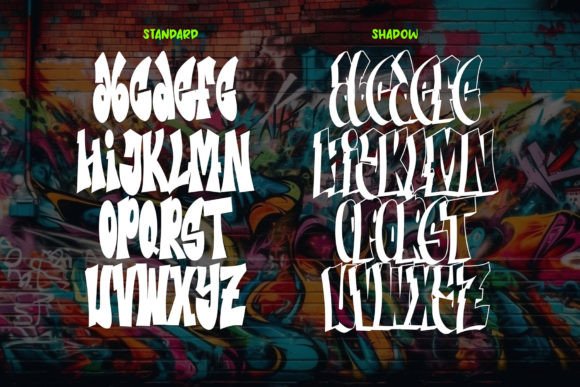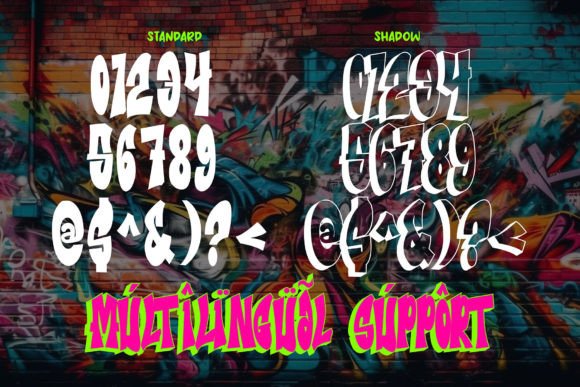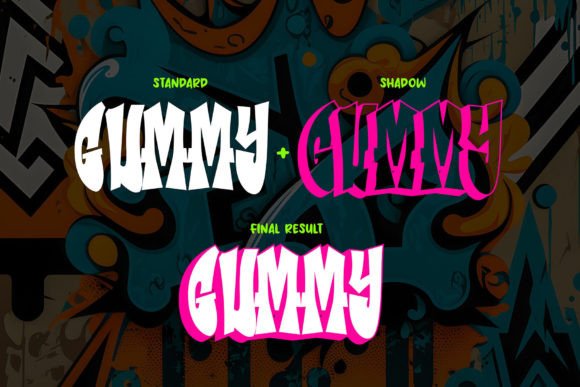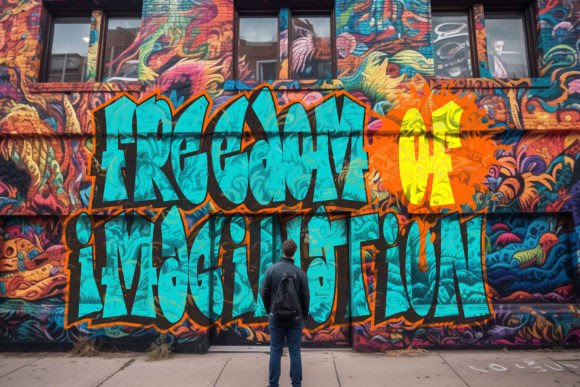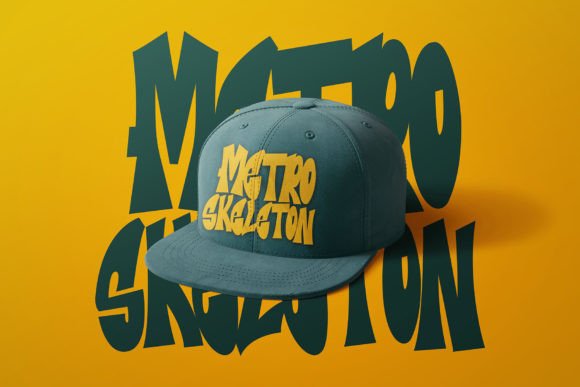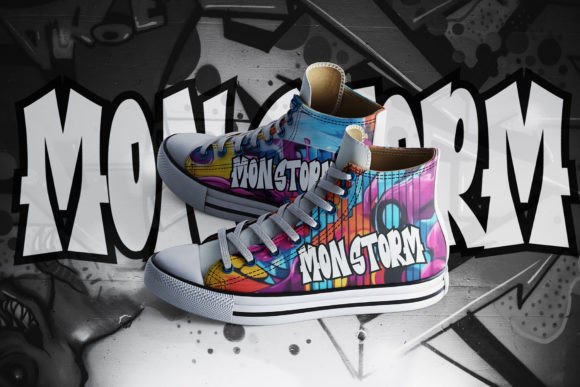
Introduction to Metro Graffi Font Font
Fonts play a crucial role in design, and the Metro Graffi Font font is a typeface that brings both character and versatility to any project. Whether you’re working on a branding project, a website, or a print design, the Metro Graffi Font font offers a unique style that can elevate your work.
“Metro Graffi” is a slightly bold graffiti font that comes in two styles: regular and shadow.
By combining these styles, you can achieve a 3D effect that adds depth and dimension to your designs With its urban and edgy style, “Metro Graffi” captures the essence of street art.
Key Features of Metro Graffi Font Font
Why Choose Metro Graffi Font Font?
The Metro Graffi Font font is more than just a typeface – it’s a design tool that helps you communicate your message with style and clarity. Its unique character set and versatile design make it suitable for a wide range of applications, from elegant invitations to bold headlines.
With its carefully crafted letterforms and balanced proportions, the Metro Graffi Font font ensures readability and visual appeal across all mediums.
What makes Metro Graffi Font font special?
The Metro Graffi Font font stands out with its unique design, exceptional readability, and versatility across various design applications.